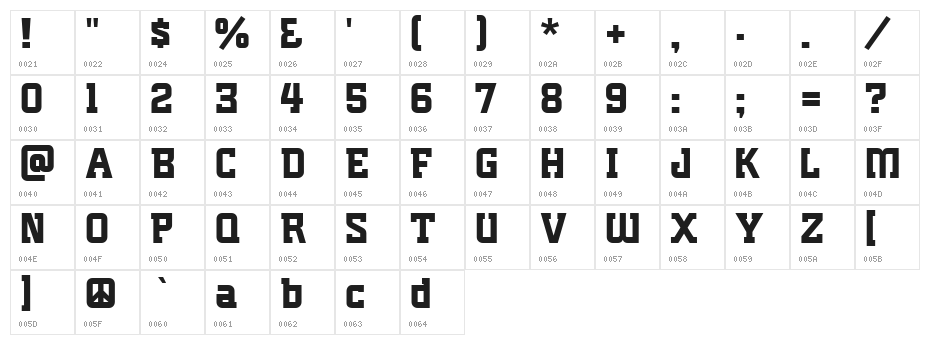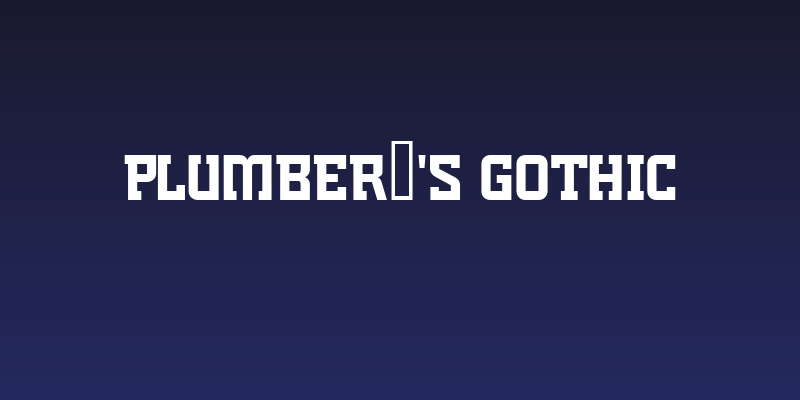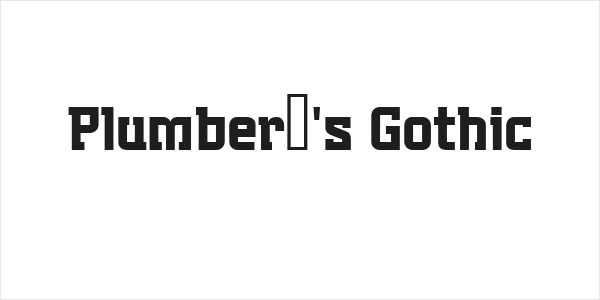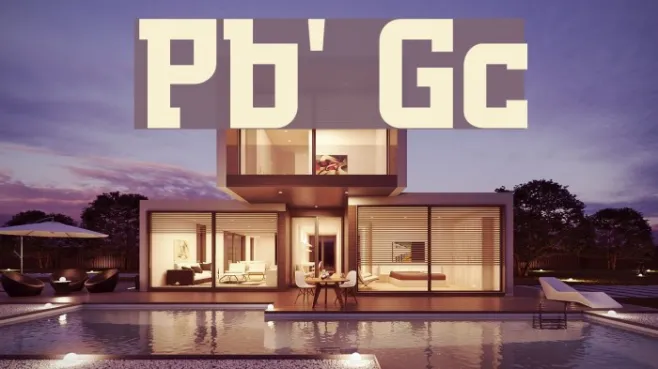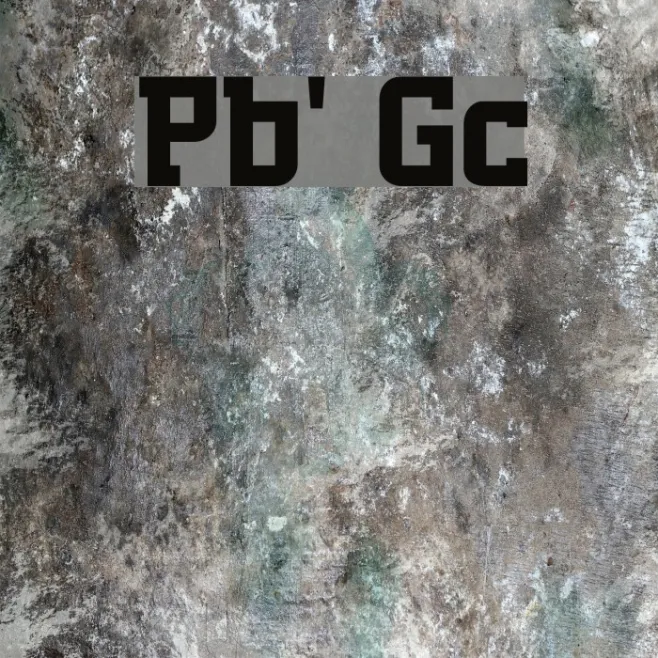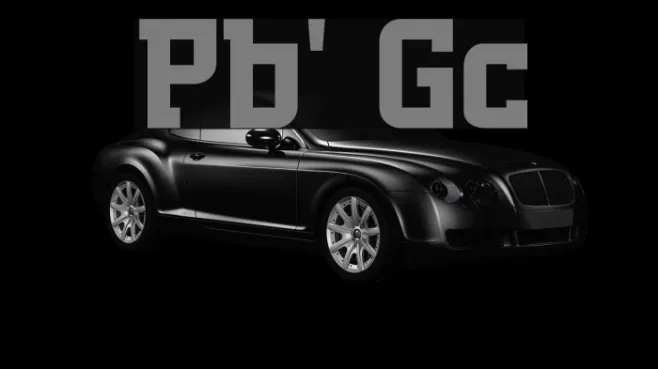
Plumber's Gothic Font
Plumber's Gothic Description
This font features a bold, geometric design with strong, angular lines and a distinct industrial feel. The uppercase letters are uniform in height, with a consistent stroke width that gives the typeface a sturdy and robust appearance. The lowercase letters maintain the same boldness, with slightly rounded edges that soften the overall look. The numerals are clear and legible, matching the boldness of the alphabet characters. Special characters are designed with the same geometric precision, ensuring consistency across all glyphs. This font's style is reminiscent of industrial signage, making it ideal for projects that require a strong visual impact.
| Overall Style | Industrial, Modern |